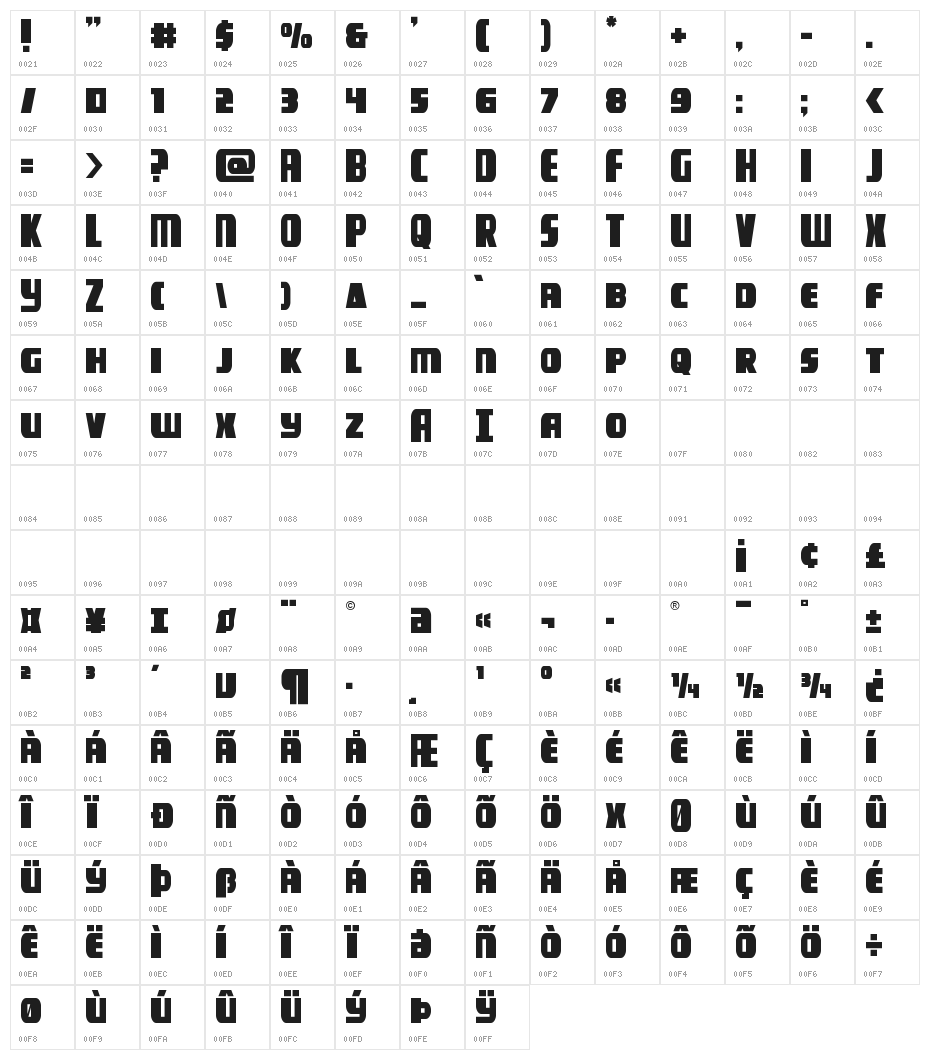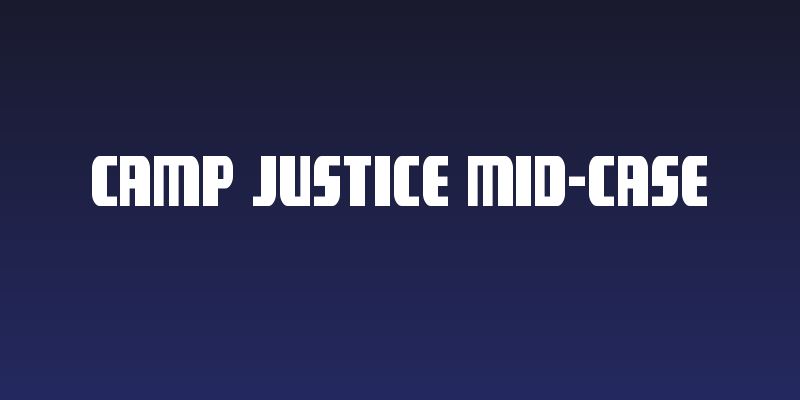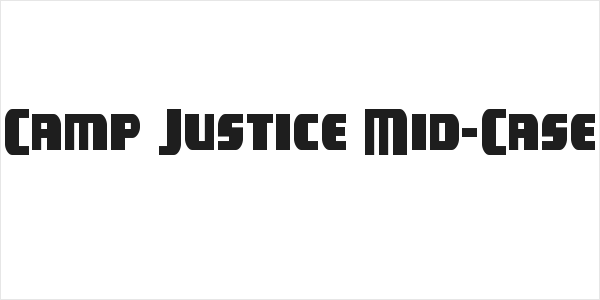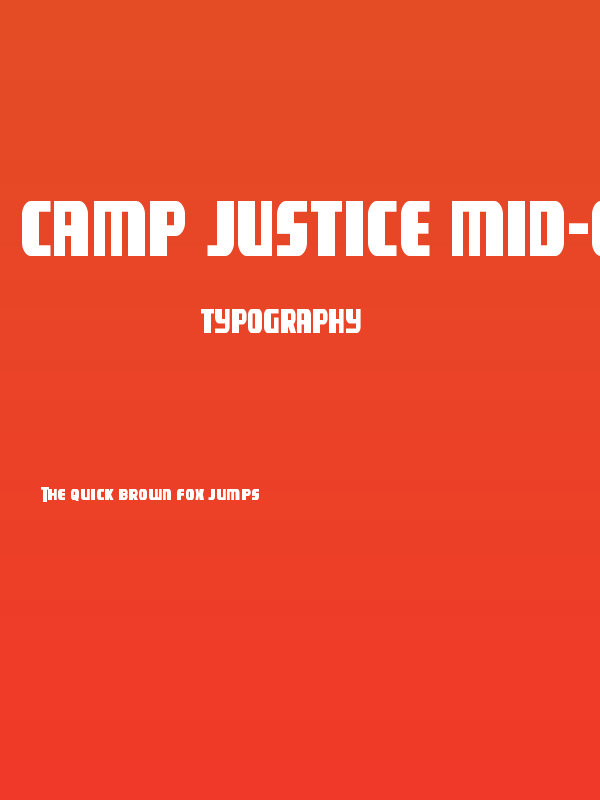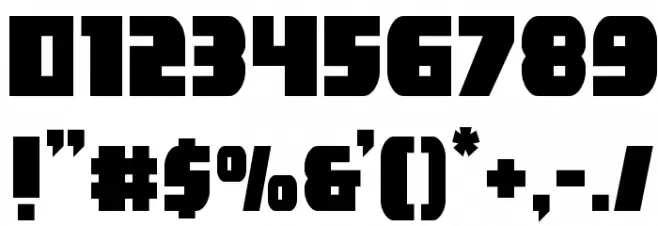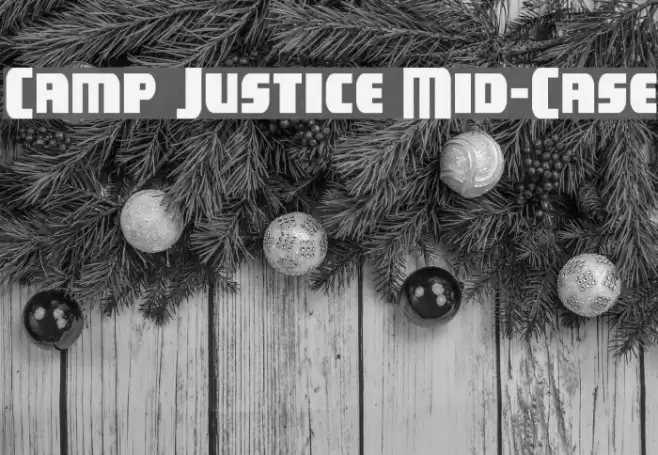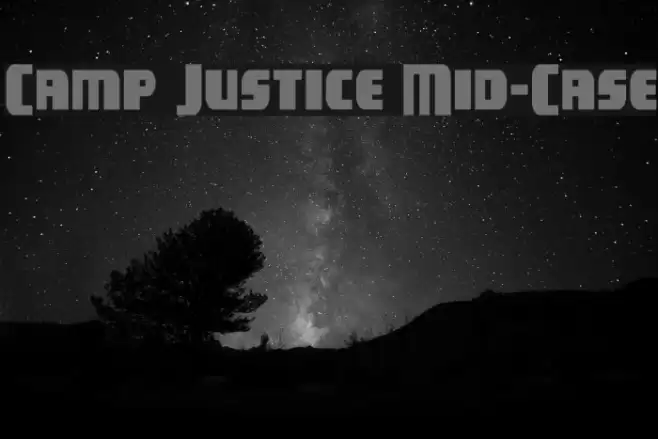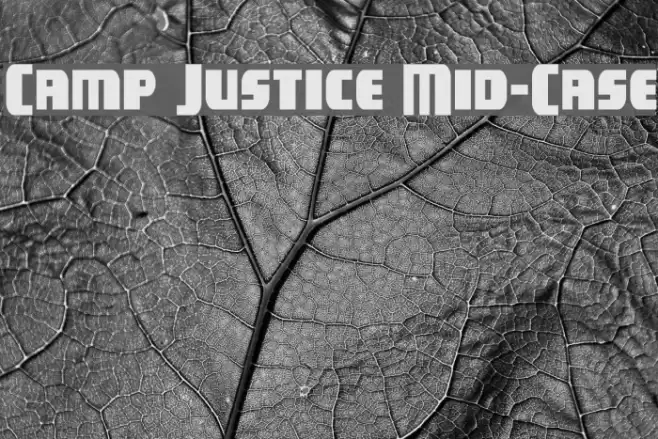
Camp Justice Mid-Case Font
This font features a bold and impactful design with strong geometric shapes and a modern aesthetic. The characters are uniformly thick, giving them a robust and sturdy appearance. The uppercase letters are particularly striking, with a blocky and angular style that commands attention. The lowercase letters maintain the same boldness, ensuring consistency across text. Numbers and special characters are equally bold, making them stand out in any context. The overall design is clean and uncluttered, with a focus on readability and visual impact.